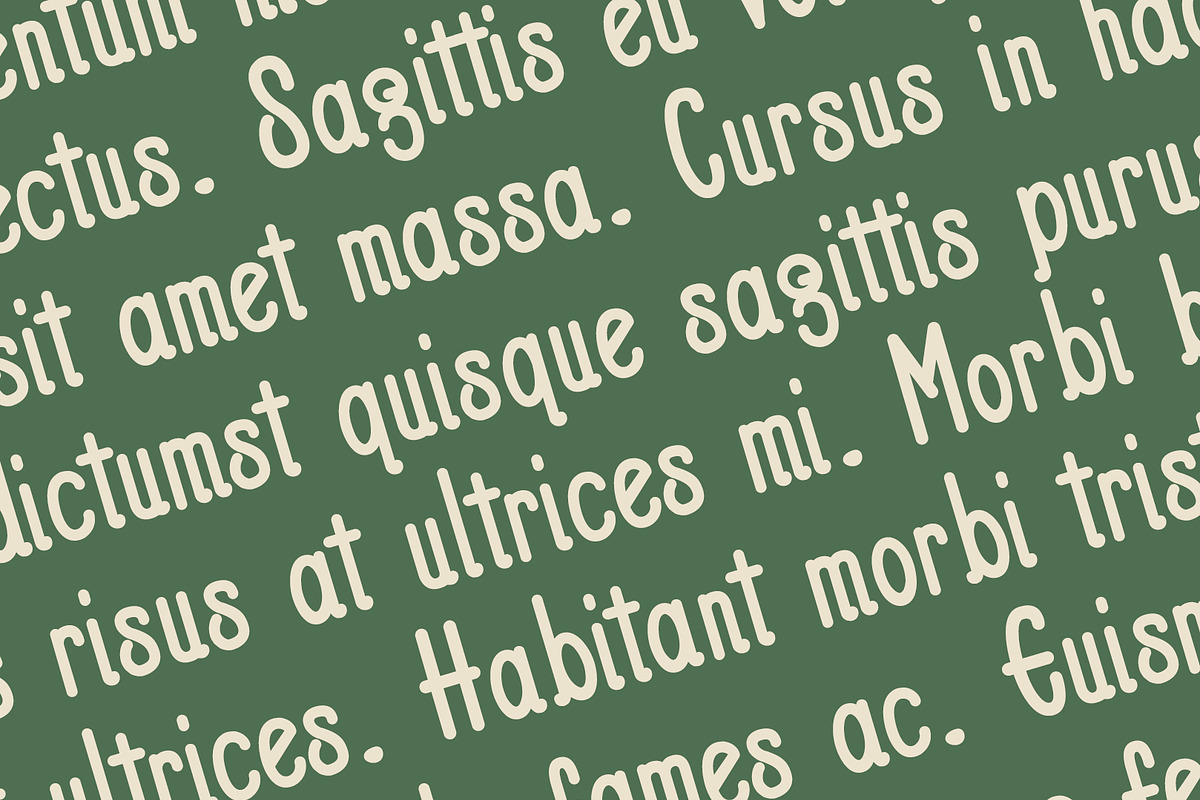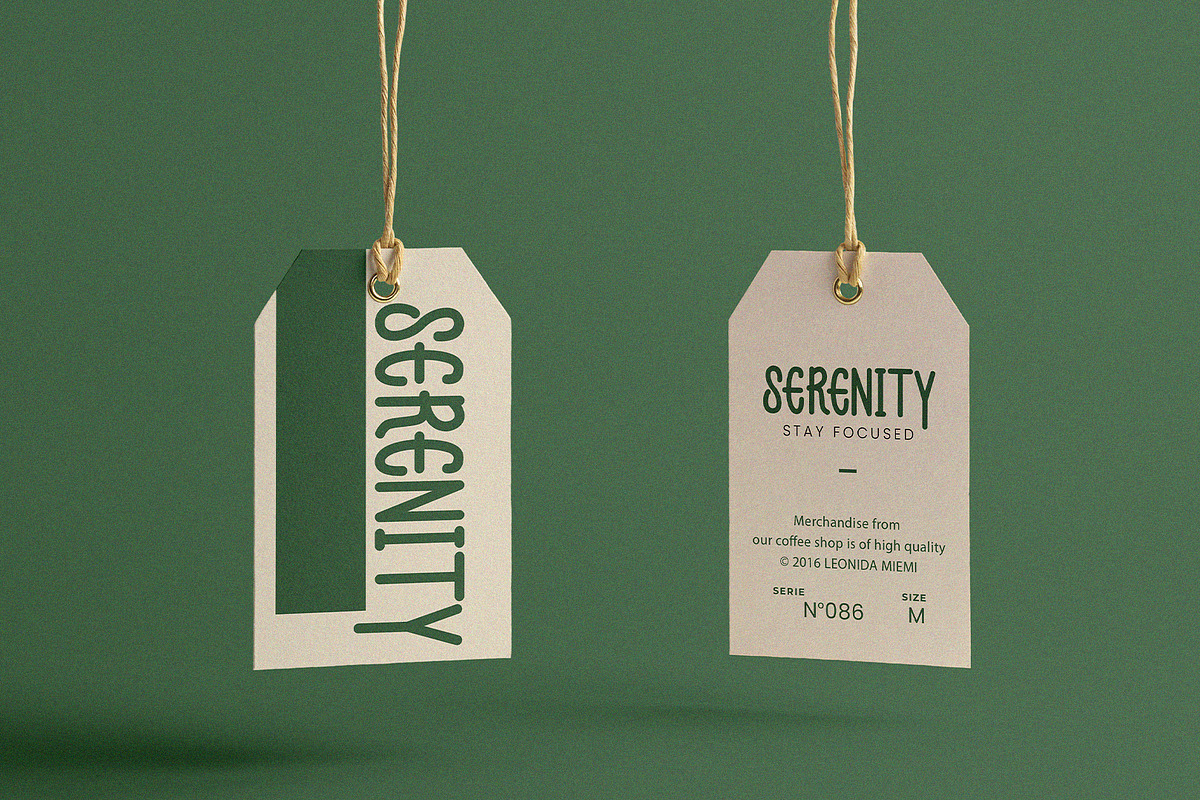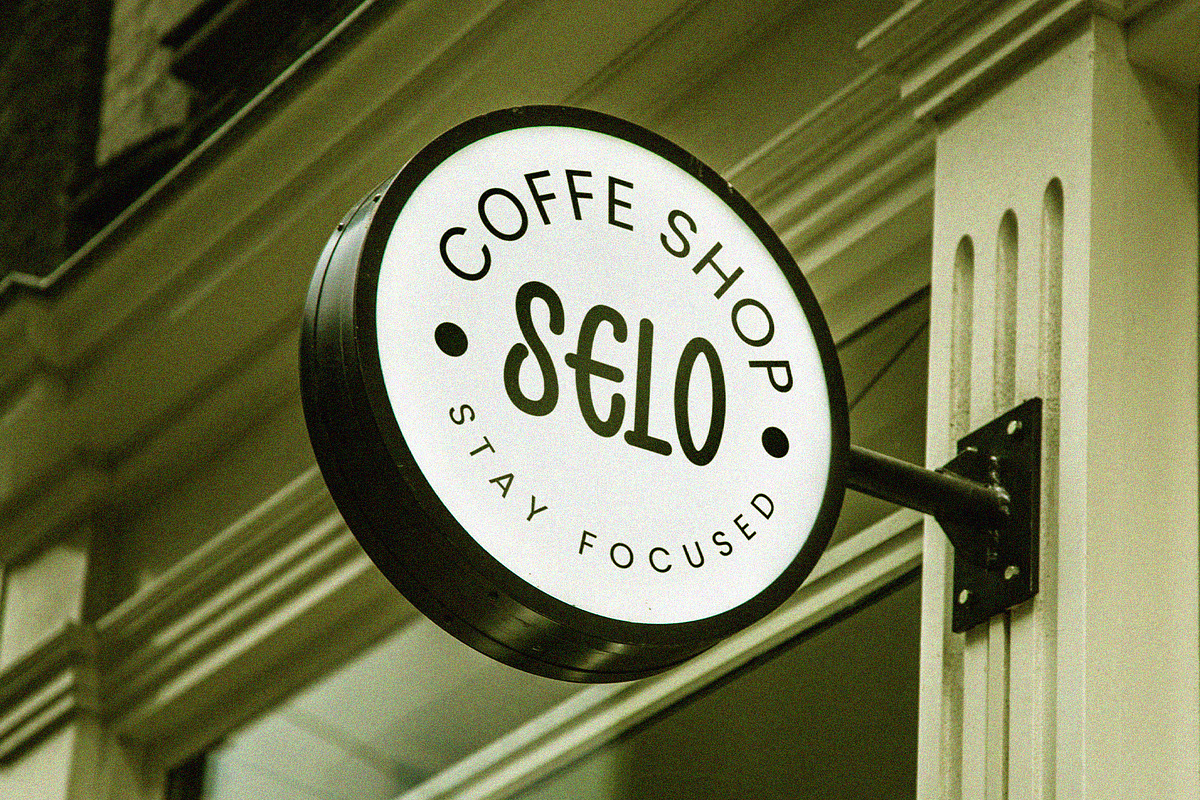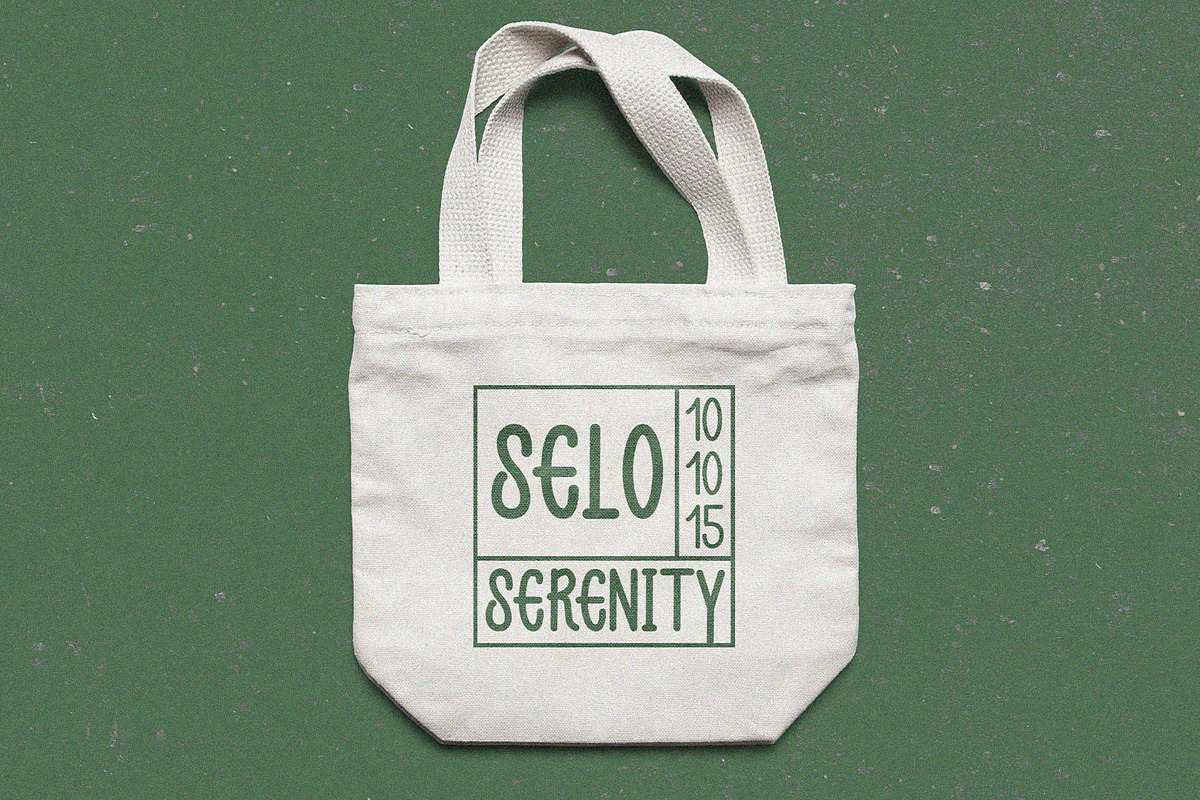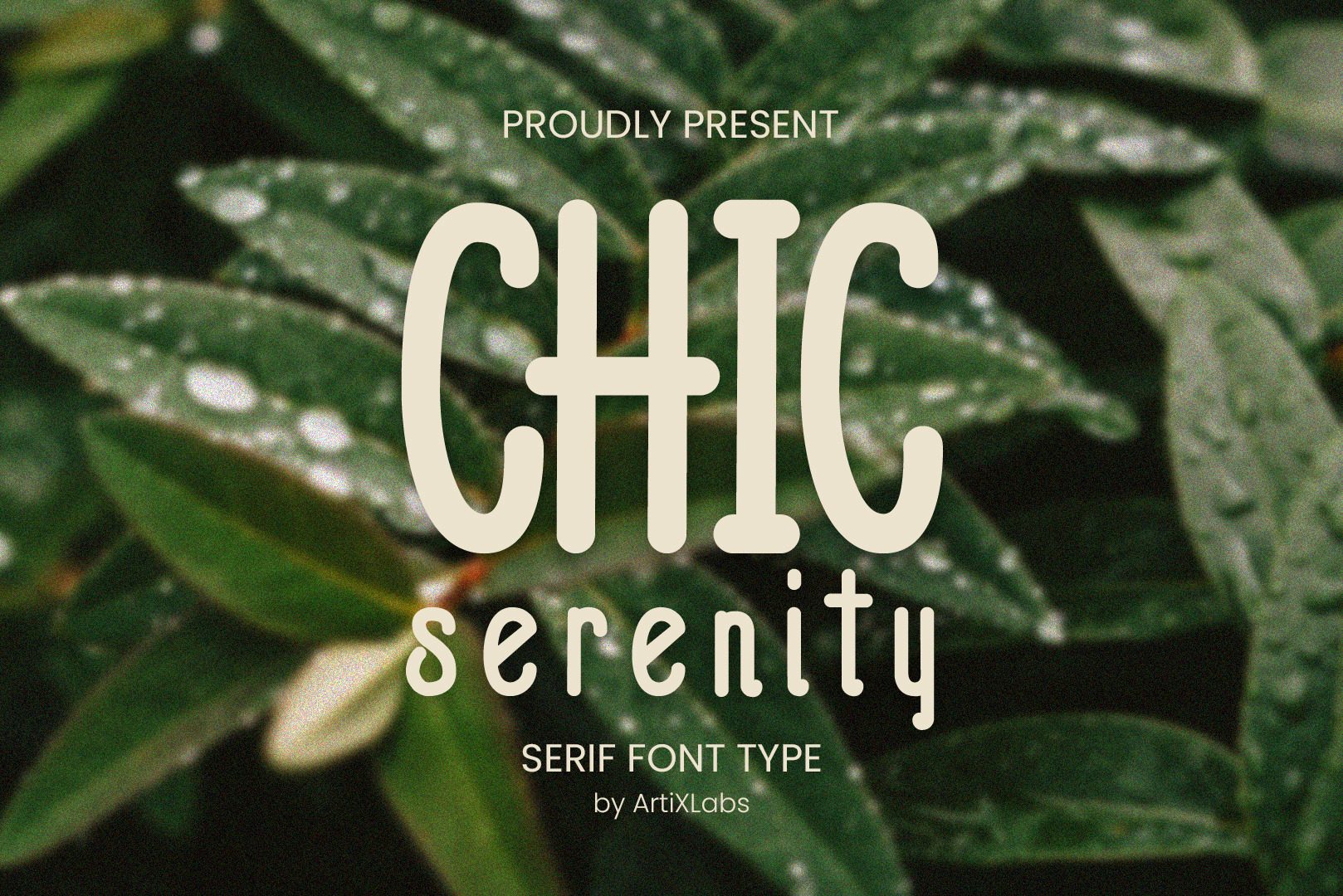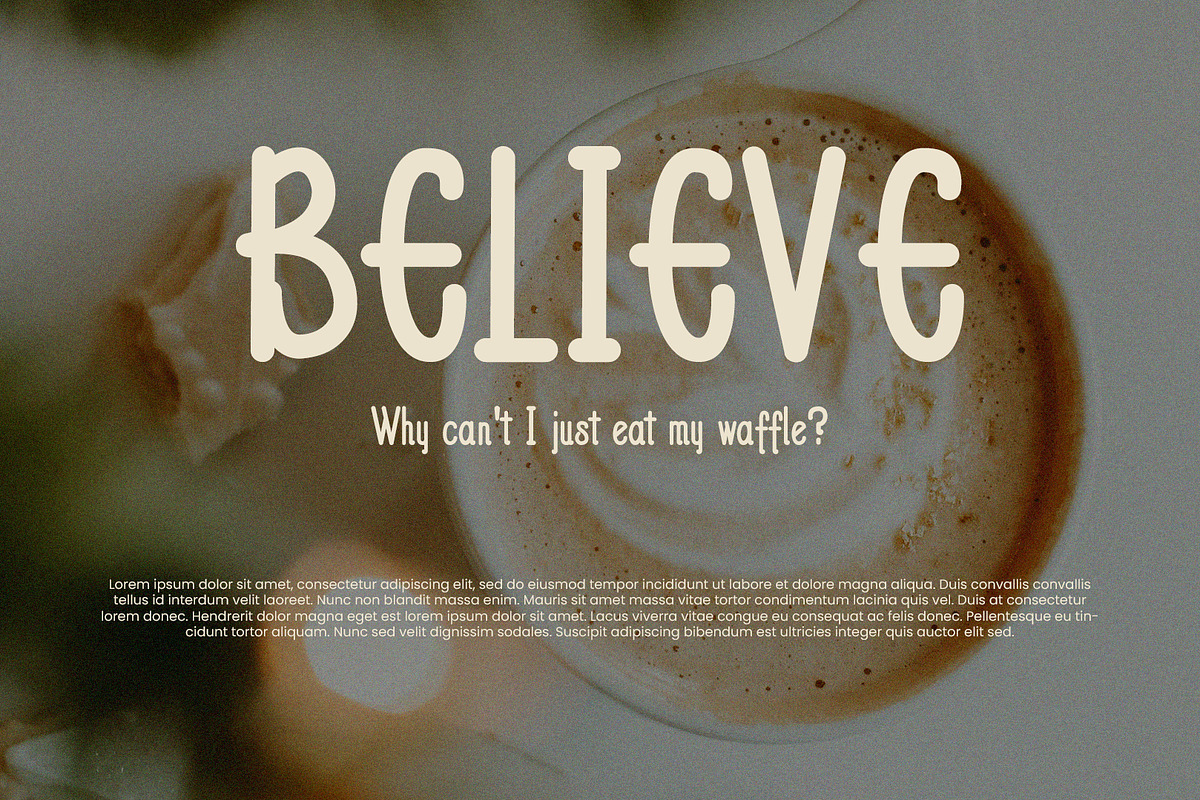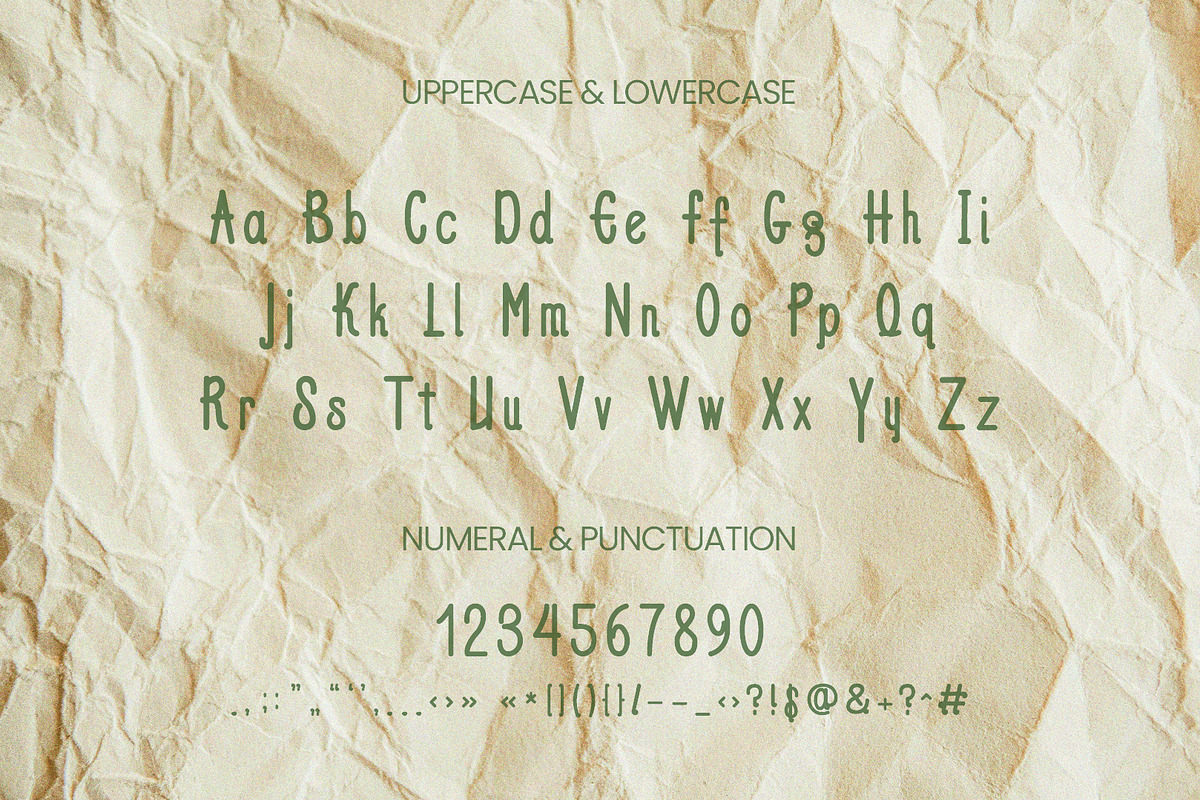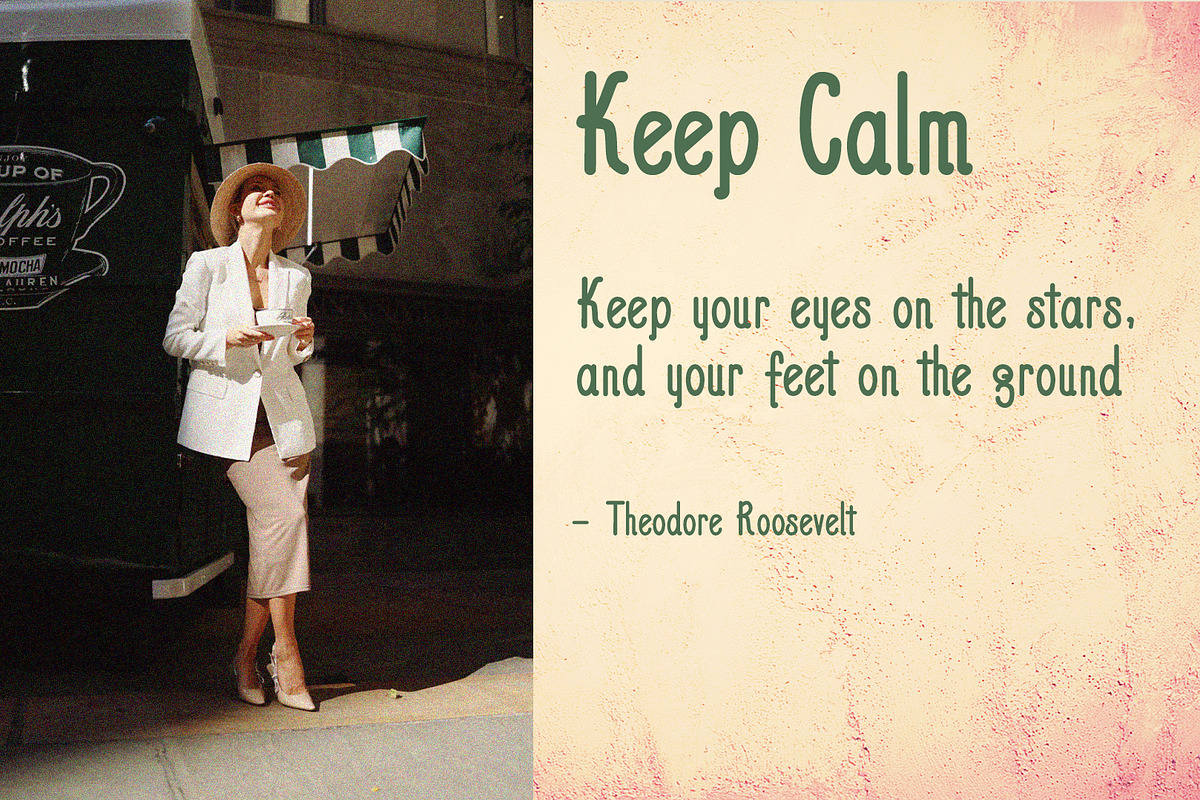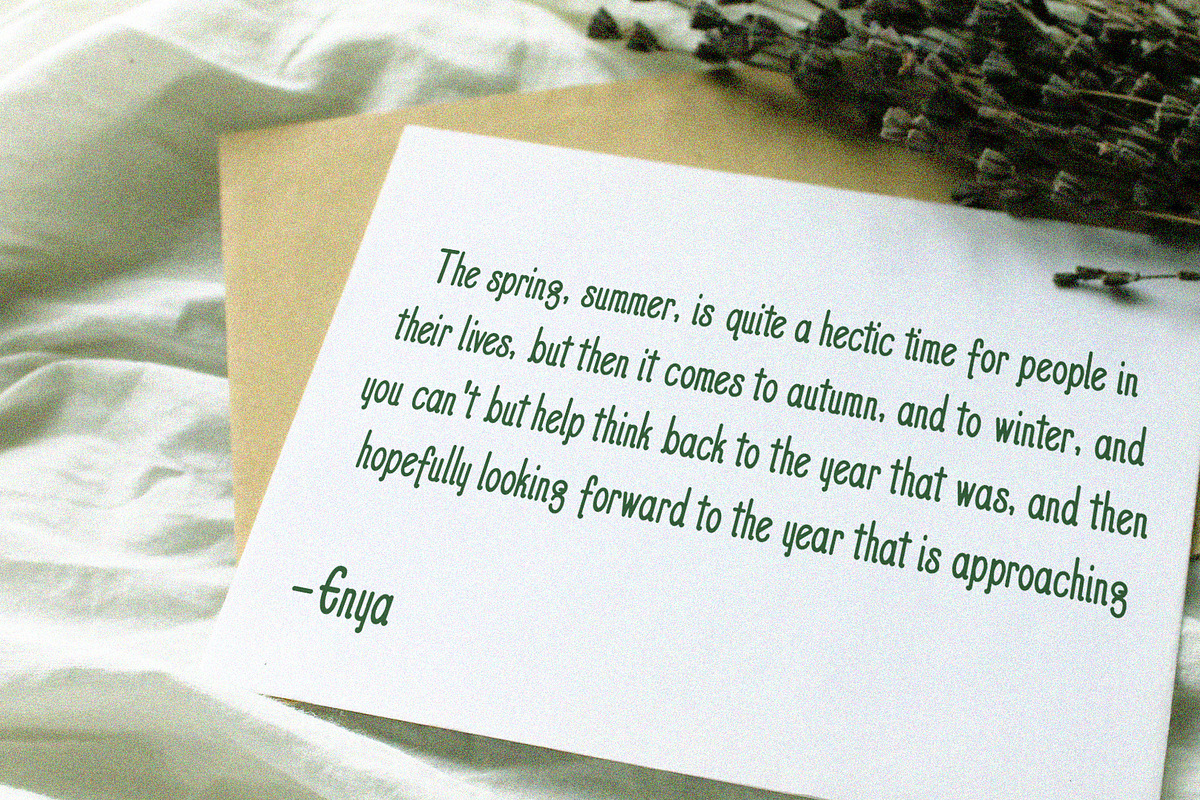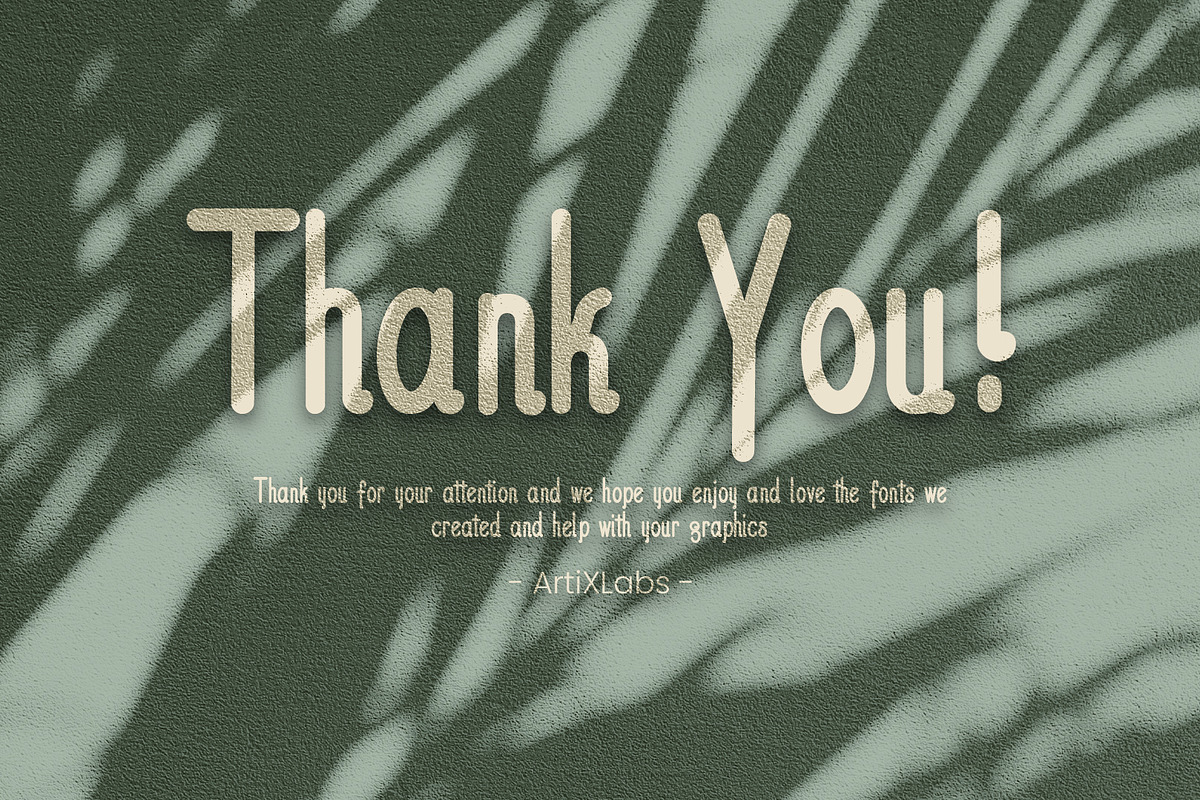
Chic Serenity - Serif Font Type
Introducing ChicSerenity - Serif Font
This Font Template contains Classic, Creative, Professional and Unique Concept.
- Regular Type Uppercase & Lowercase